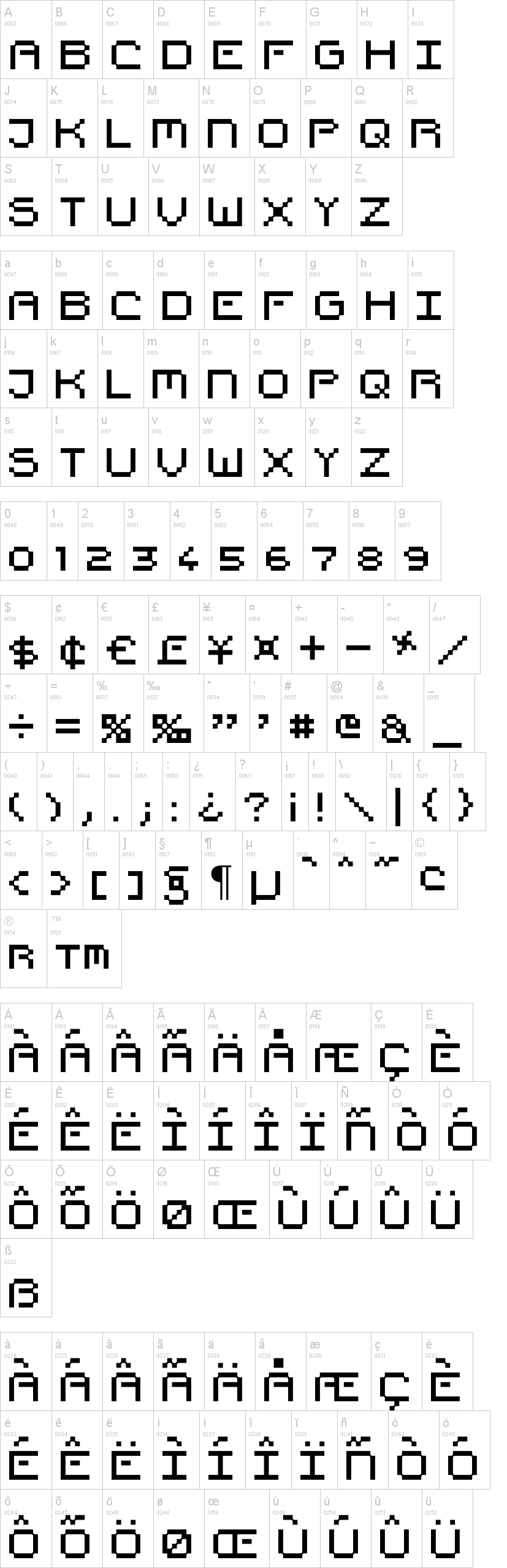
Note of the authorPixel Countdown is based the science-fiction text of SSIs Buck Rogers Gold-Box series of RPGs. Includes full alphabet, extended punctuation, euro.